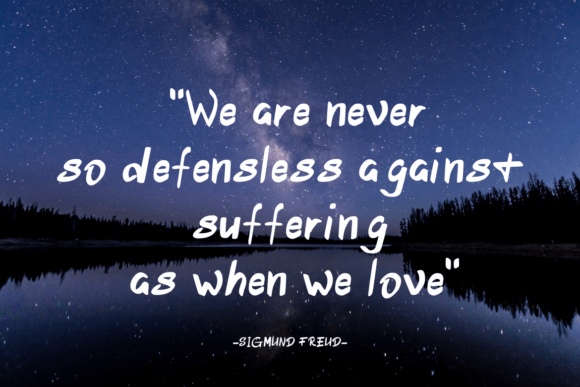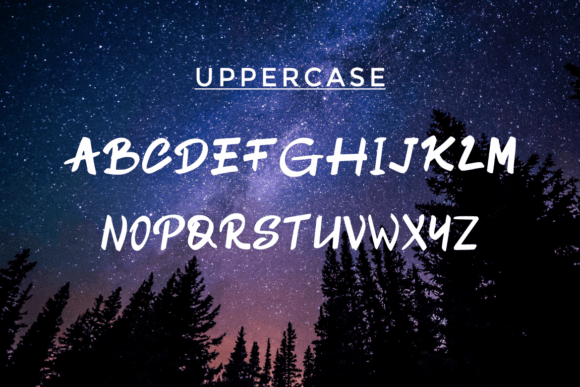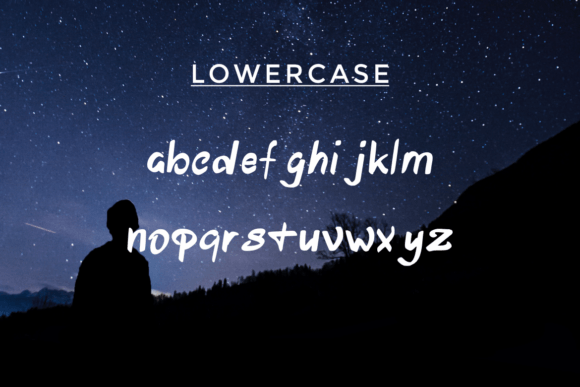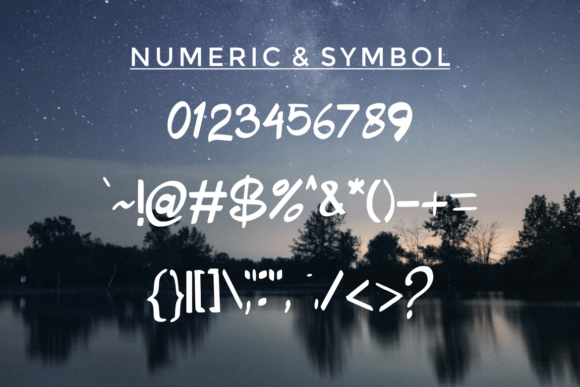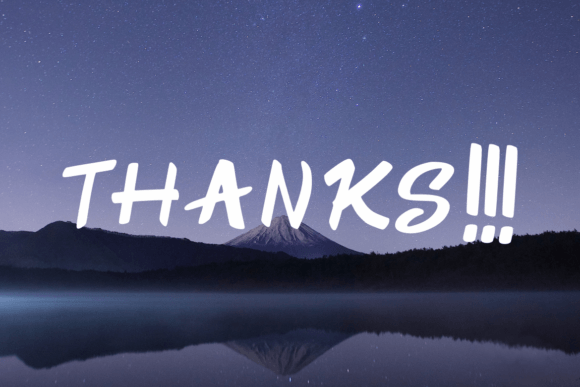
Introducing Alfani Font: The Ultimate Casual and Fun Handwritten Font
Are you tired of using the same old fonts for your designs, crafts, and presentations? Look no further than Alfani Font, a casual and fun handwritten font that’s sure to become your new favorite. In this article, we’ll dive into the world of Alfani Font and explore its features, uses, and benefits for designers and crafters alike.
What is Alfani Font?
Alfani Font is a beautifully crafted handwritten font that’s perfect for adding a personal touch to your designs. Its casual and fun style makes it ideal for a wide range of projects, from digital designs and presentations to crafts and greeting cards. With its unique and charming character, Alfani Font is sure to capture the attention of your audience and leave a lasting impression.
Key Features of Alfani Font
- Casual and Fun Style: Alfani Font boasts a relaxed and playful style that’s perfect for creating informal and engaging designs.
- Handwritten Charm: The font’s handwritten nature gives it a unique and personal touch that’s hard to replicate with traditional fonts.
- Versatile: Alfani Font can be used for a wide range of projects, from digital designs and presentations to crafts and greeting cards.
- Easy to Read: Despite its casual style, Alfani Font is easy to read and understand, making it perfect for body text and headings.
Uses of Alfani Font
Alfani Font is an incredibly versatile font that can be used for a wide range of projects, including:
- Crafts: Add a personal touch to your craft projects, such as scrapbooking, card making, and DIY gifts.
- Digital Design: Use Alfani Font in your digital designs, such as social media graphics, blog posts, and website headers.
- Presentations: Add some personality to your presentations with Alfani Font, making them more engaging and memorable.
- Greeting Cards: Create beautiful and unique greeting cards for special occasions, such as birthdays, holidays, and weddings.
Benefits of Using Alfani Font
So, why should you choose Alfani Font for your next project? Here are just a few benefits of using this amazing font:
- Adds Personality: Alfani Font adds a personal touch to your designs, making them more relatable and engaging.
- High-Quality: Alfani Font is a high-quality font that’s designed to produce crisp and clear results, even at small sizes.
- Unique: Alfani Font is a unique and original font that’s sure to stand out from the crowd.
Tips for Using Alfani Font
Here are a few tips for getting the most out of Alfani Font:
- Pair with Other Fonts: Experiment with pairing Alfani Font with other fonts to create interesting and dynamic designs.
- Use for Headings and Body Text: Use Alfani Font for both headings and body text to create a cohesive and engaging design.